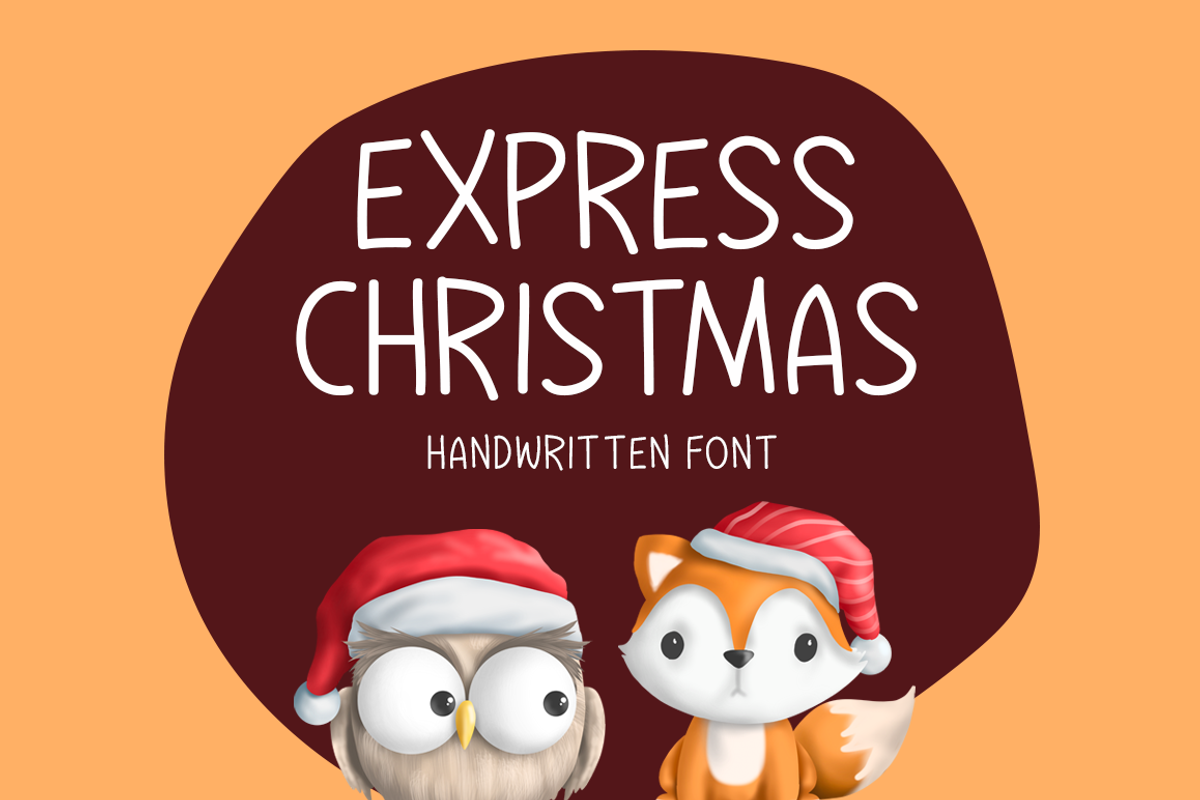
Express Christmas Typeface Free Download
Express Christmas Typeface Free Download is a festive and joyful display font designed to capture the spirit of the holiday season. With its playful curves, cheerful letterforms, and warm handwritten feel, this typeface is perfect for Christmas cards, holiday invitations, seasonal packaging, festive signage, and winter-themed social media graphics.
Whether you’re creating designs for cozy home decor, children's crafts, or holiday promotions, Express Christmas adds a magical, heartwarming touch that brings your message to life with seasonal charm.